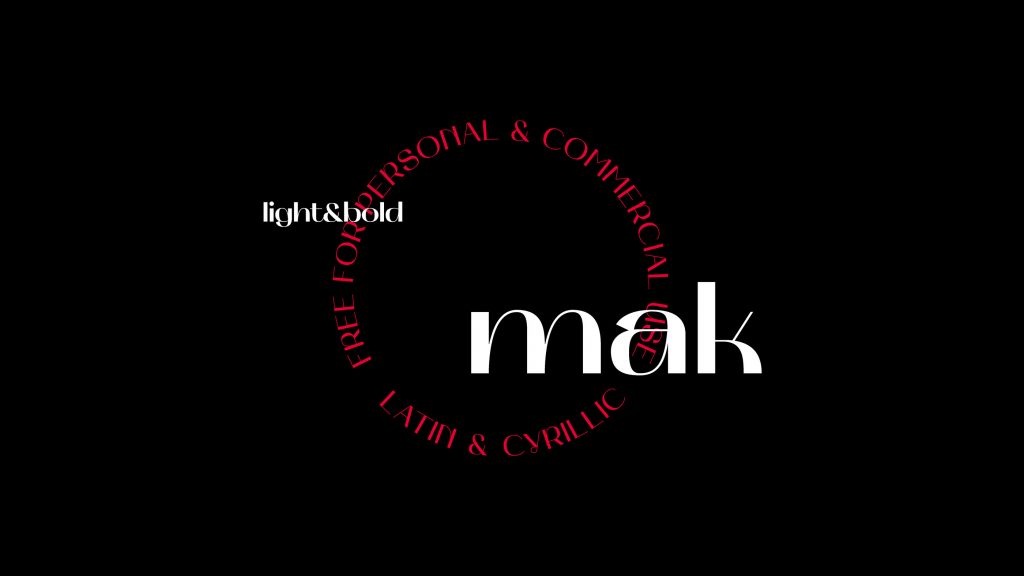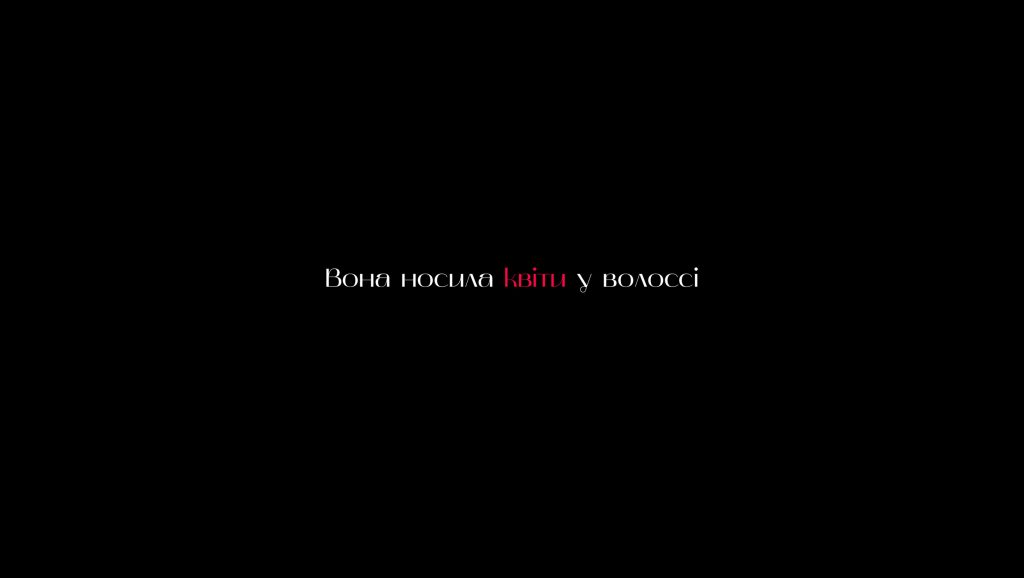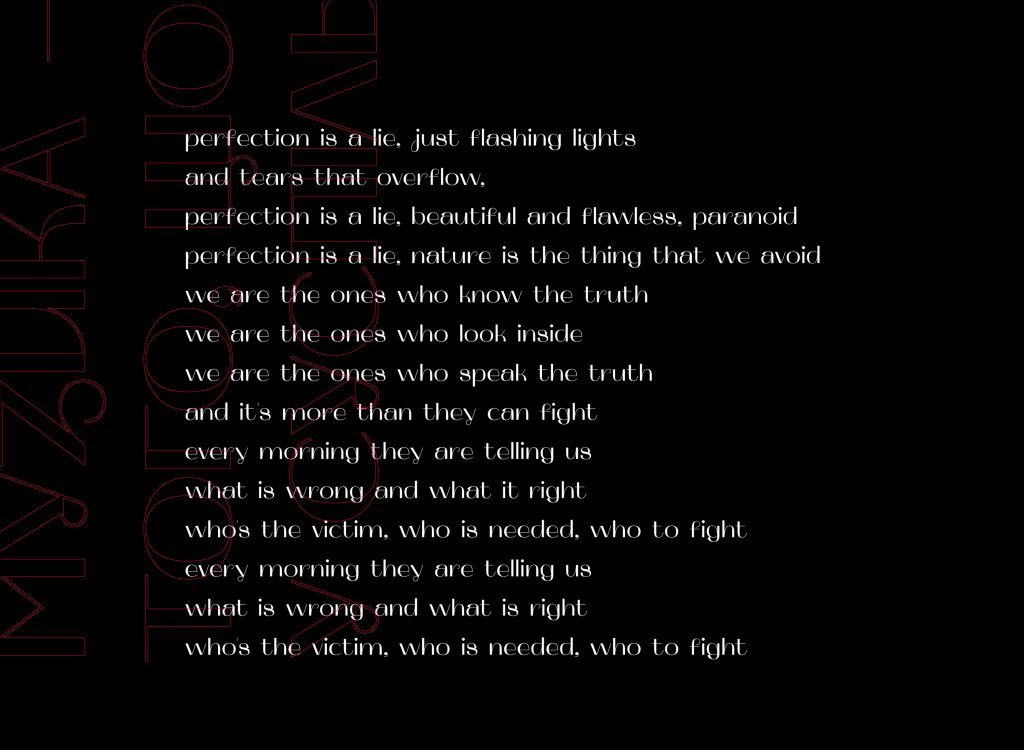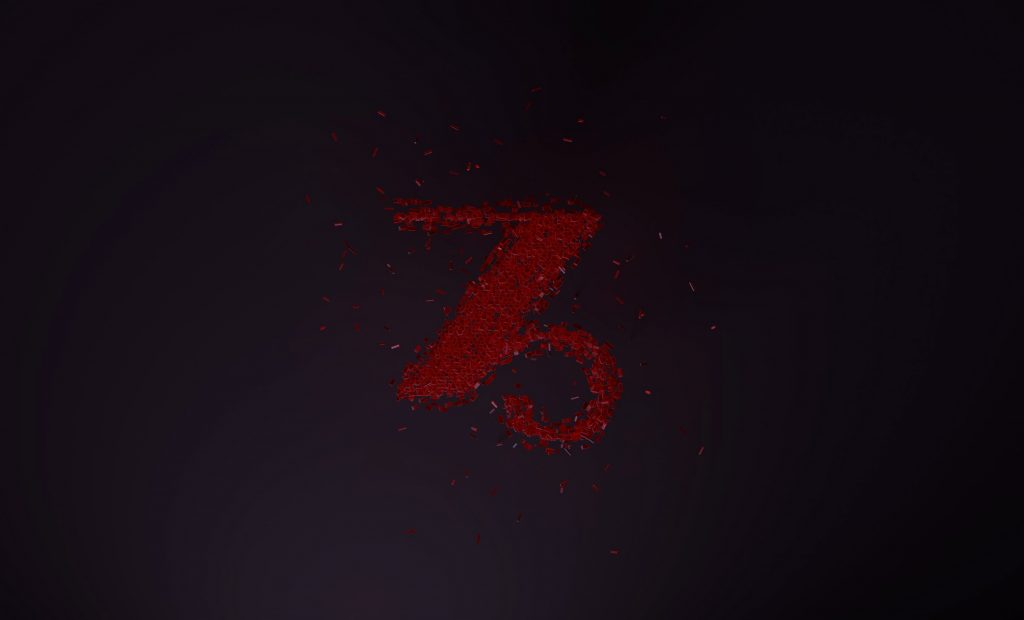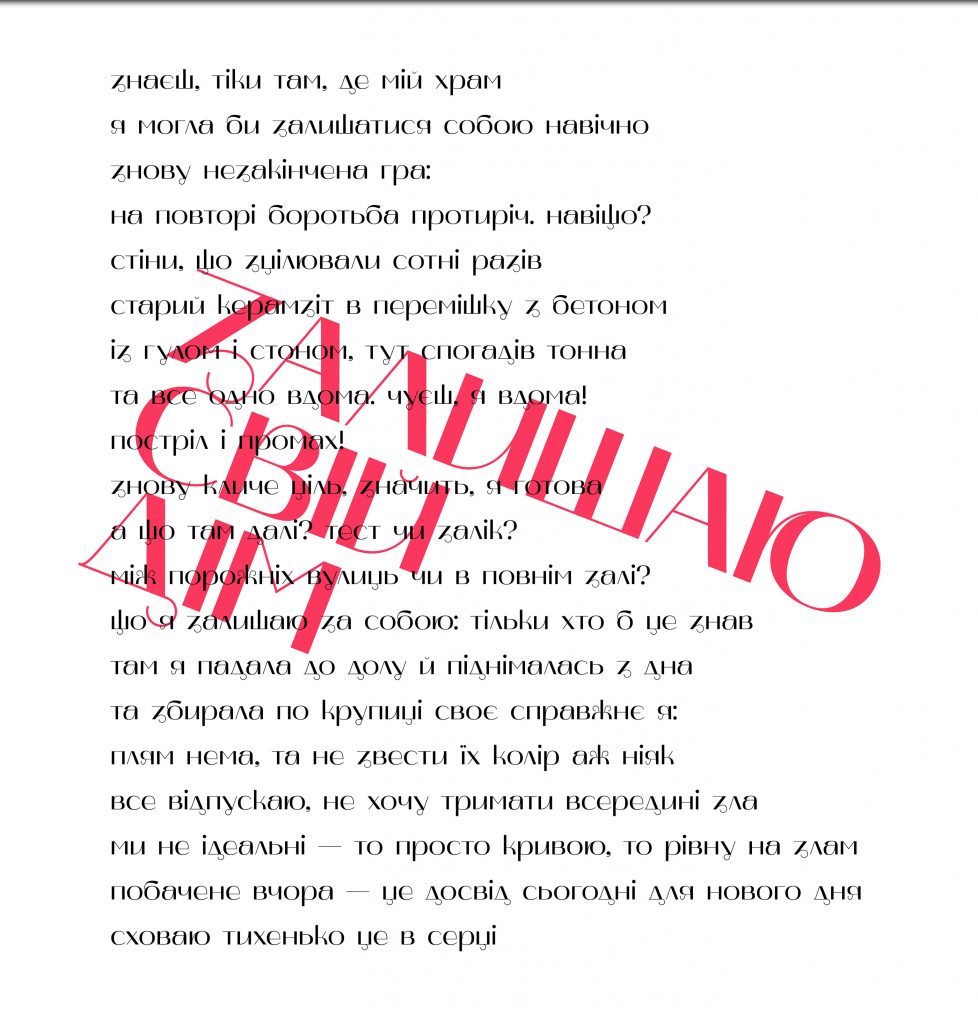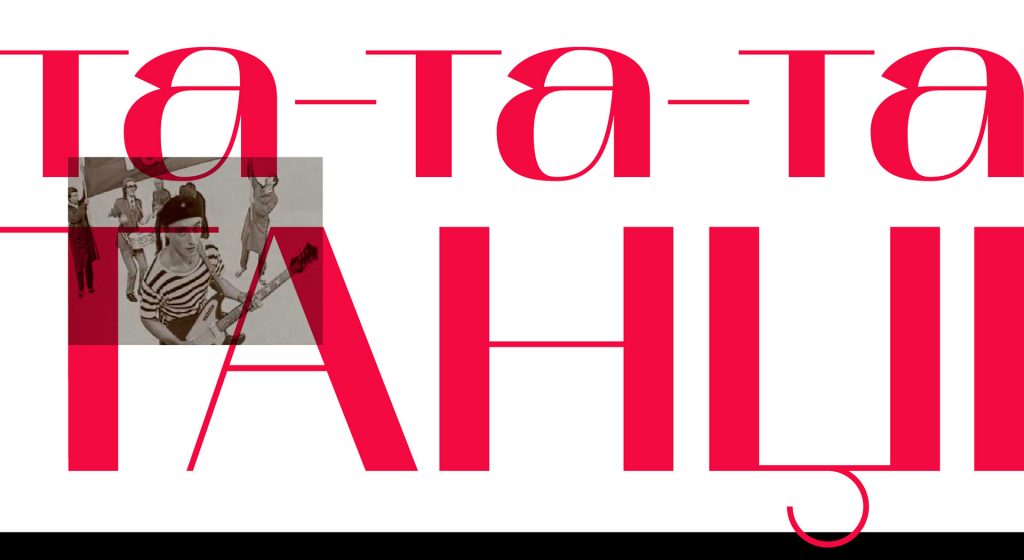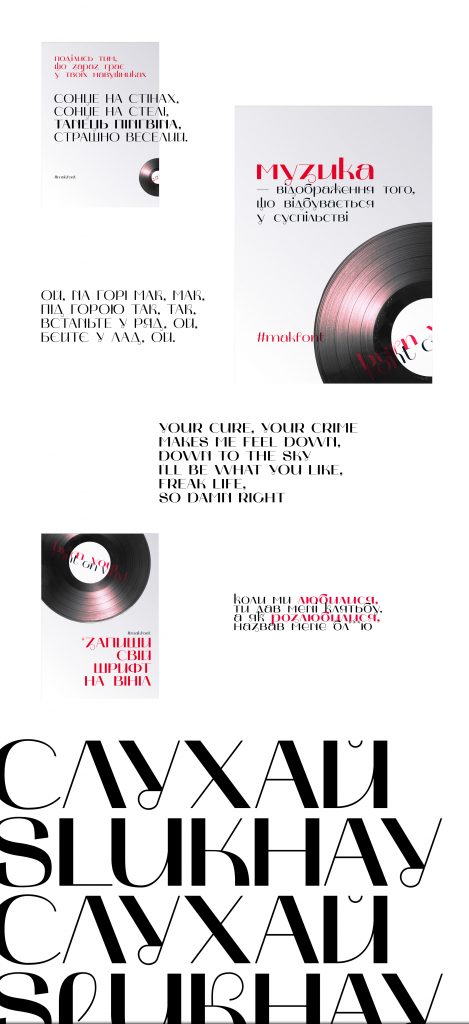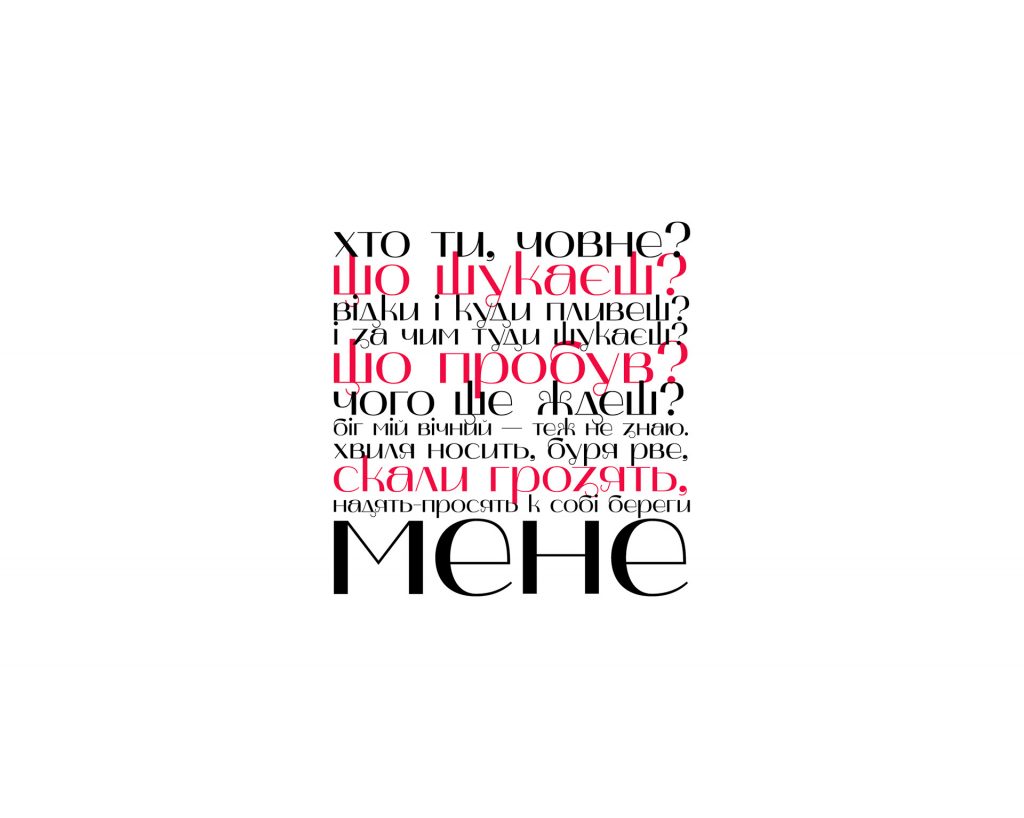
Backstory: Valentyn Tkachenko is a graphic designer from Kyiv, Ukraine, who, like a fair few other graphic designers we know, is obsessed with underground music. In particular, he’s obsessed with experimental Ukrainian music, which often blends modern electronic music styles with motifs from traditional Ukrainian folk songs. He cites artists such as YUKO, ONUKA, Alina Pash, Dakha Brakha, Khayat as some of the main musicians he listened to while studying his Visual Communication course at the Projector Creative & Tech School in Kyiv. It was there that he created Mak, a typeface that aligns his love of this music with his passion for type design.
“Like many designers, I can’t imagine my life without music,” says Tkachenko. “Music creators are just like designers: they experiment with sounds, combine different cultural contexts, and rethink historical backgrounds” to create something new, he adds. The experimental nature of his favorite music styes is also echoed in the design for Mak. “I wanted to mix and play with the historical shapes of Ukrainian Cyrillic, different styles, and the constructions of [today’s] trendy typefaces to see what resulted.”
What are its defining characteristics? The font is unusual in its merging of Ukrainian typographic tradition and modernity, and is notable for its large contrast between strokes. The font, which is free to download, is only available in light and bold weights—the absence of a regular variation was a deliberate reference to the irregular, boundary-pushing nature of the music that inspired it. “I don’t think decorative strokes really need a regular style,” Tkachenko says. “I wanted to leave some space to show its experimental, playful nature.”
Why’s it called Mak? The word means poppy flower in Ukrainian, which is a key folk symbol in Ukrainian culture. It’s also the title of the first song Tkachenko heard from YUKO, who he cites as the music act that became the “main inspiration of typeface’s concept.”
What should I use it for? Due to its unusual, experimental nature—and the fact that it has no regular weight—Mak isn’t really one for body copy or large chunks of text. It’s perfect, however, for designs that are centered on a typographic approach, and it makes for a great display font for posters, packaging, and branding projects that allow for a wilder approach. Obviously, it also works nicely for music-related design work, like record packaging and flyers. “It’s a very self-sufficient typeface,” says Tkachenko. “It’ll always stand out next to the other elements of a design.”
What other fonts should I pair it with? The designer advises that due to the complex letterforms of Mak, it’s best paired with simple grotesque-style fonts. He recommends NAMU by fellow Ukranian designers Dmitry Rastvortsev and Ermilov by Kyrylo Tkachev.